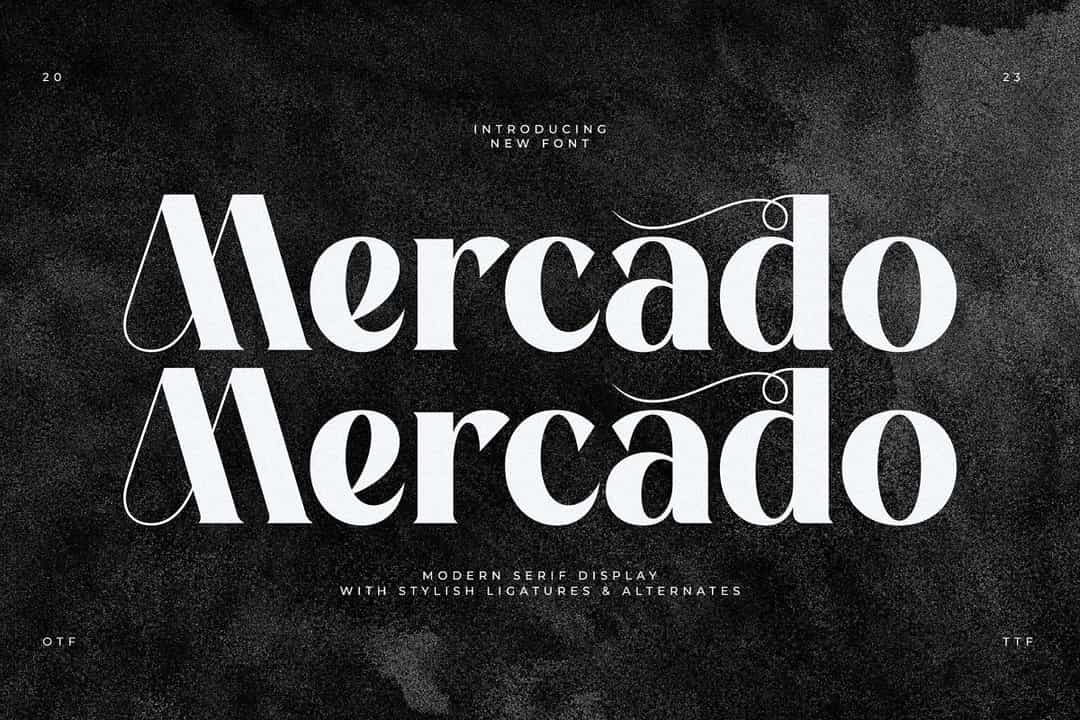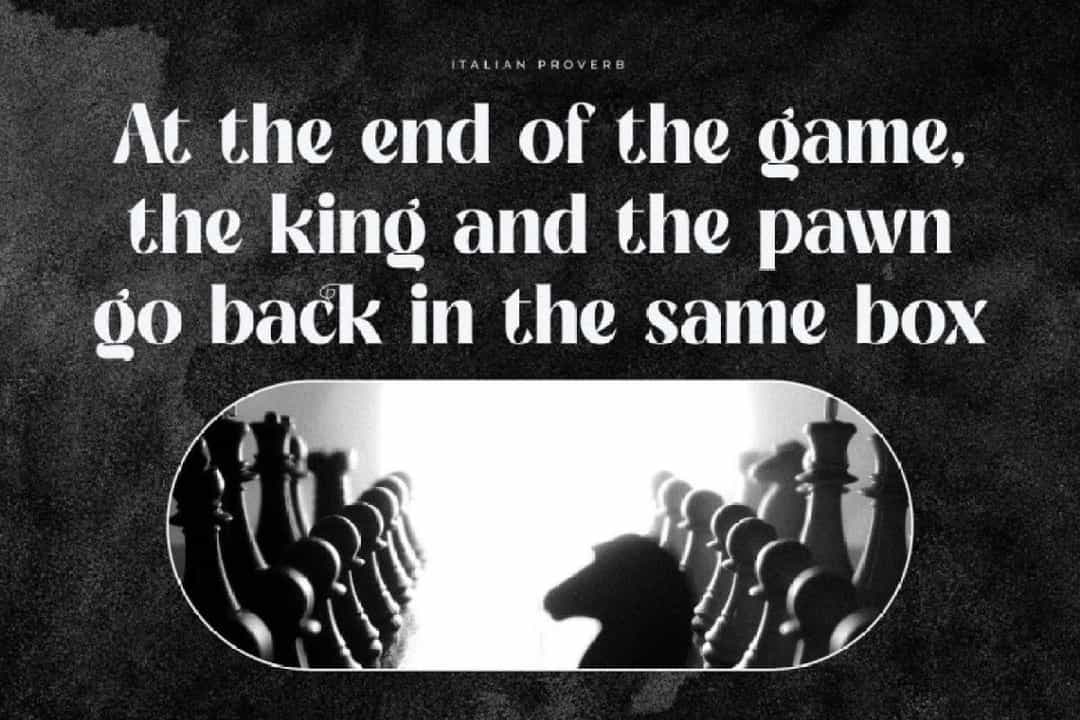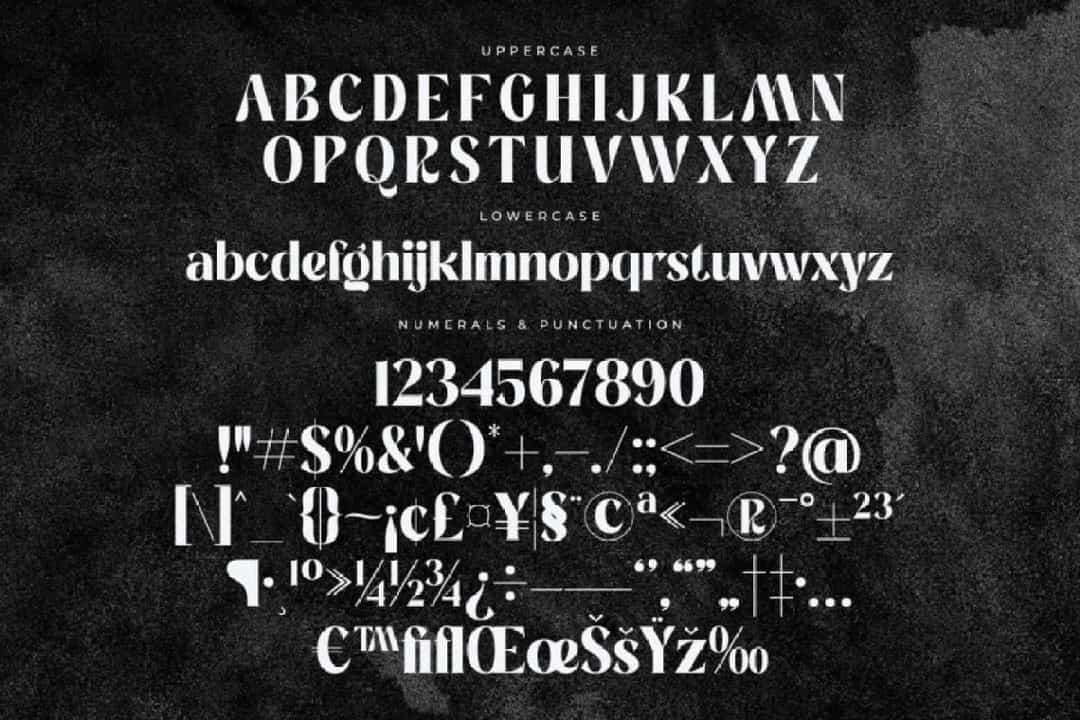
Mercado is an elegant and modern serif typeface with its own distinct style and contemporary feel, perfect for creating luxurious logos, movie or book titles, clothing labels, magazine letters, quotes or any other purpose. This font makes an outstanding choice when designing sophisticated logos, movie title design or even movie subtitles!